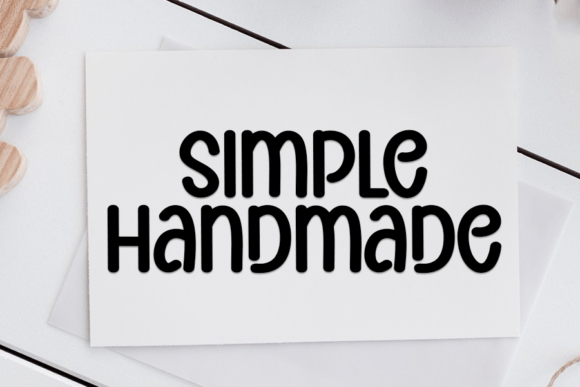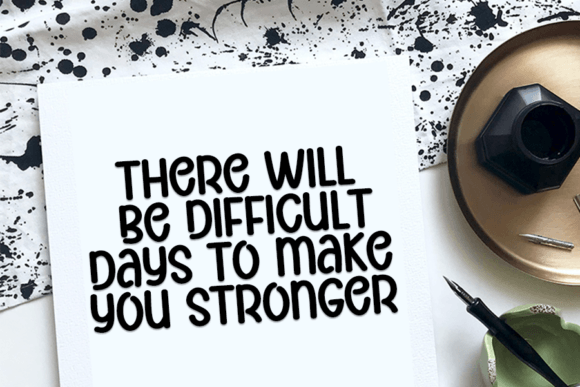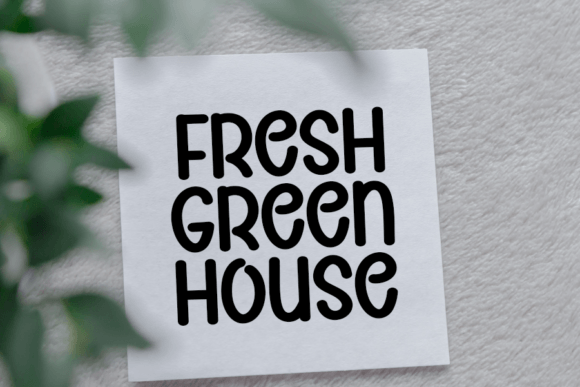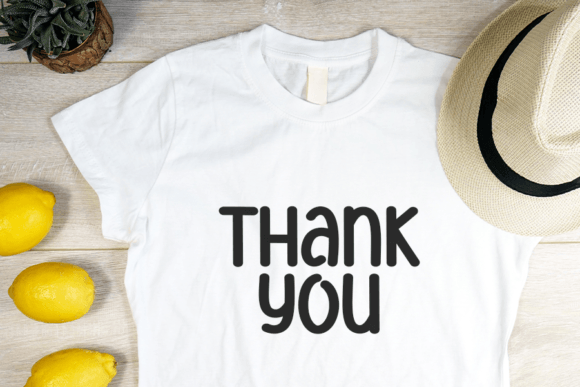
The Ultimate Creative Designer Font: Elevate Your Designs with Style
I’ll never forget the time I was working on a project for a client who needed a modern and edgy font to match their brand’s personality. I spent hours scouring the internet for the perfect font, but nothing seemed quite right. That was until I stumbled upon the Creative Designer font. It was love at first sight! 😍 With its sleek lines and contemporary feel, it was exactly what I needed to take my design to the next level.
An Honest Review: What I Love (and What to Watch Out For)
So, what makes the Creative Designer font so special? Here are a few things that I absolutely love:
- ✨ Versatility: This font is perfect for a wide range of design projects, from crafts and digital design to presentations and greeting cards.
- ✅ Readability: Despite its modern and edgy feel, the font remains highly readable, even at smaller sizes.
- 💥 Impact: The font has a bold and attention-grabbing quality that makes it perfect for headlines and titles.
Of course, no font is perfect, and there are a few small quirks to be aware of:
- 🤔 Limited use of OpenType features: While the font does have some basic OpenType features, it’s not as extensive as some other fonts on the market.
- ⚠️ Not ideal for body text: While the font is highly readable, it’s not the best choice for large blocks of body text. It’s best used for headlines and titles.
One of the best things about Creative Designer is its support for OpenType features and glyphs. Here are a few tips for getting the most out of these features:
- Stylistic alternates: Creative Designer has a range of stylistic alternates that allow you to customize the font to suit your design.
- Glyphs: The font also includes a range of glyphs, including ligatures, ornaments, and swashes.
The Designer Inspiration Behind Creative Designer
So, what’s the story behind Creative Designer? While the font’s origins are shrouded in mystery, it’s clear that the designer was inspired by the world of modern design. With its sleek lines and contemporary feel, Creative Designer is the perfect font for anyone looking to add a touch of style to their designs.
| What is Creative Designer? | Creative Designer is a modern and edgy display font that’s perfect for a wide range of design projects. |